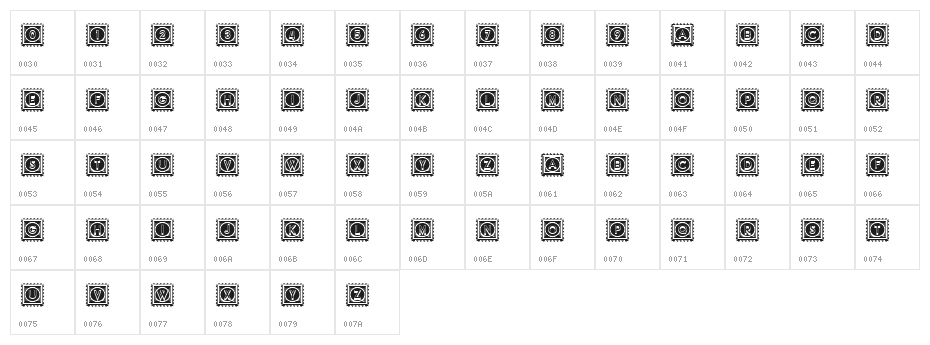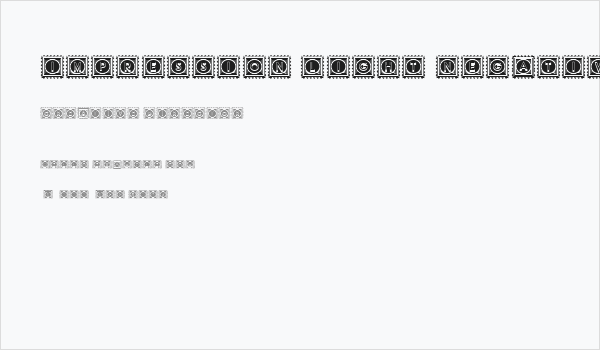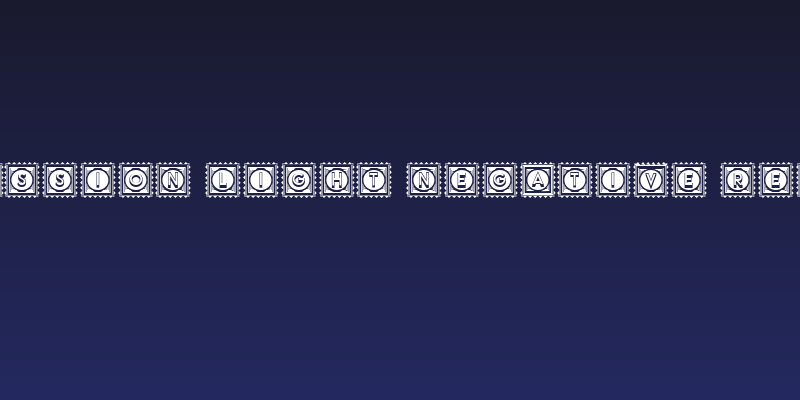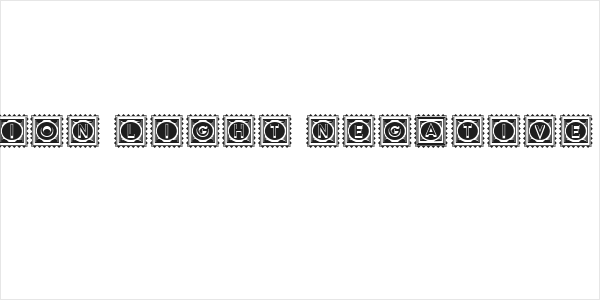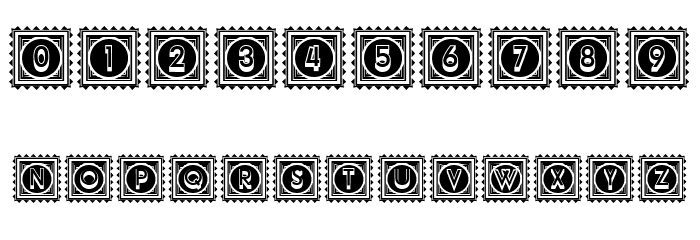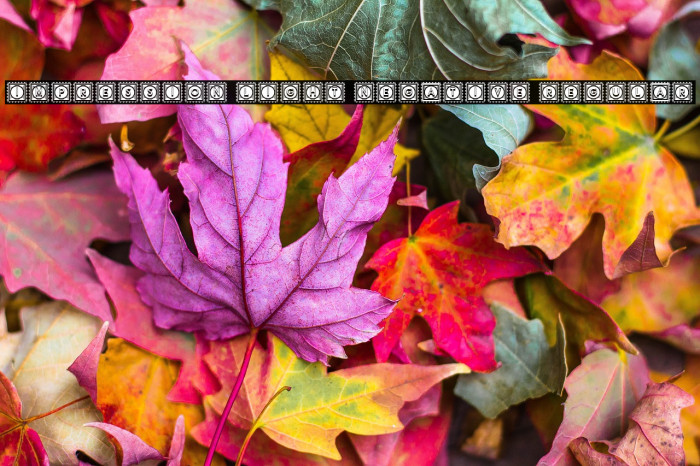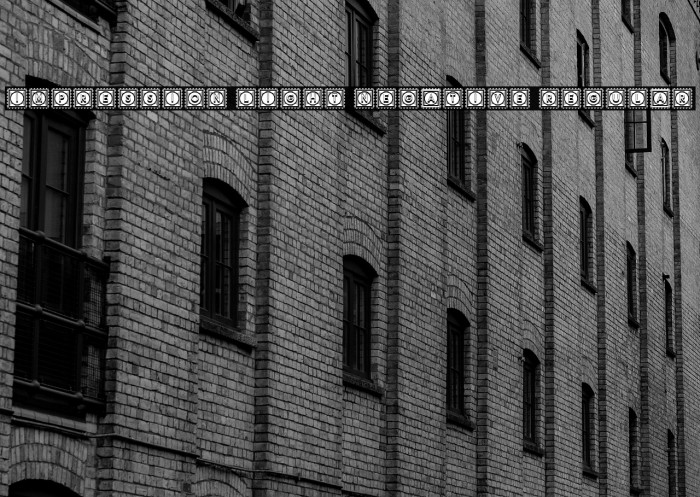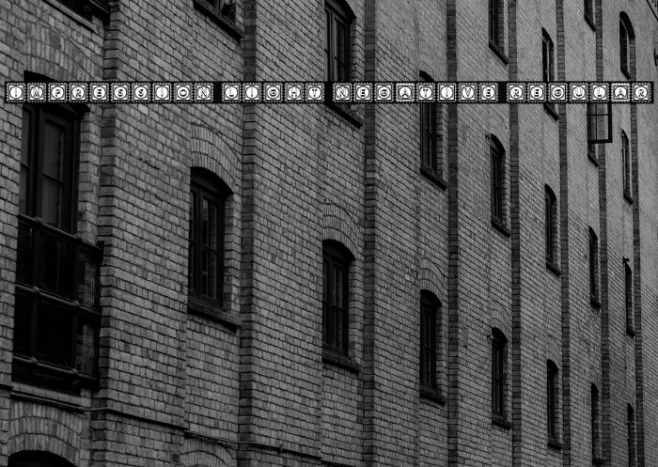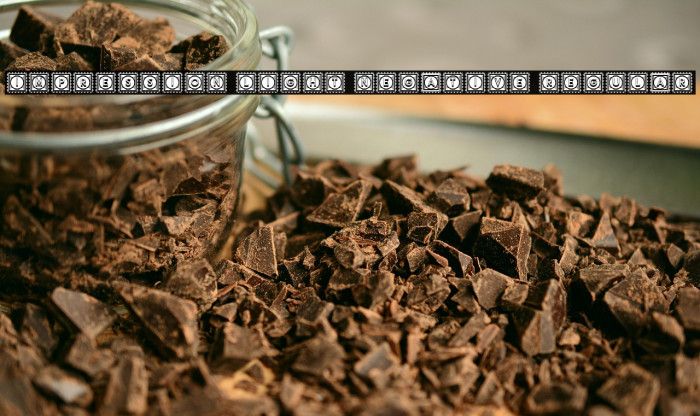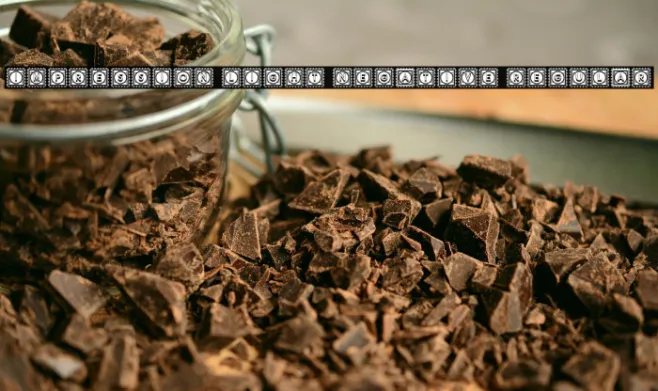
Impression Light Negative Regular Font
Impression Light Negative Regular Description
This font features a unique decorative style with each character enclosed in a square frame resembling a postage stamp. The letters and numbers are bold and have a playful, vintage feel, with a consistent negative space around each character. The design is highly ornamental, with a zigzag pattern on the borders of each frame, adding a dynamic and eye-catching element. The characters themselves are sans-serif, providing a clean and modern contrast to the ornate frames. This font is ideal for projects that require a touch of nostalgia or a distinctive visual impact.
| Proposed Projects | Ideal for vintage-themed designs, posters, greeting cards, and branding that requires a unique and memorable style. |